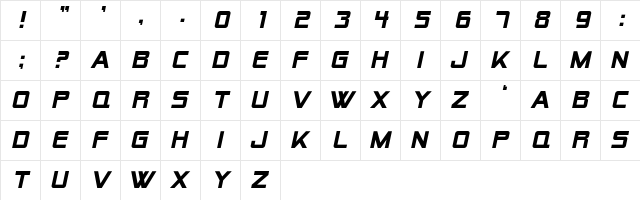
SF Alien Encounters Solid Italic
Design Context for SF Alien Encounters Solid Typeface
SF Alien Encounters Solid takes a measured approach to typography — its balanced proportions and neutral character make it a reliable workhorse for both digital and print work. The dynamic lean of this cut emphasises speed and emphasis in any layout.
Pro Tip: Try SF Alien Encounters Solid for annotation and caption copy alongside an upright companion — the contrast in angle creates a dynamic but ordered typographic system.